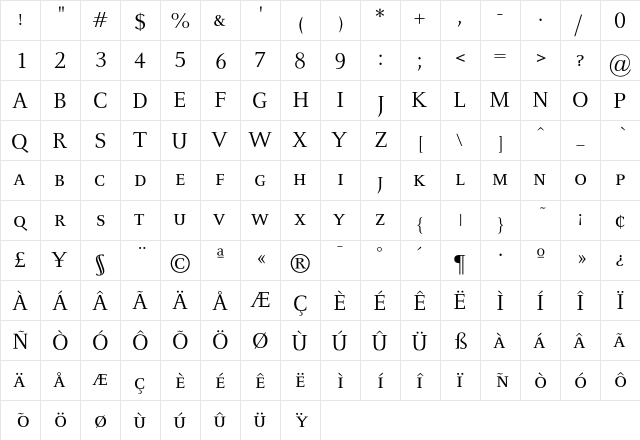
CelesteCaps Regular
Design Context for CelesteCaps Typeface
CelesteCaps offers clean, dependable letterforms without strong stylistic allegiance, making it a practical choice for designers who need flexibility.
Pro Tip: Pair CelesteCaps with a font of contrasting weight or personality to build a more expressive typographic hierarchy.